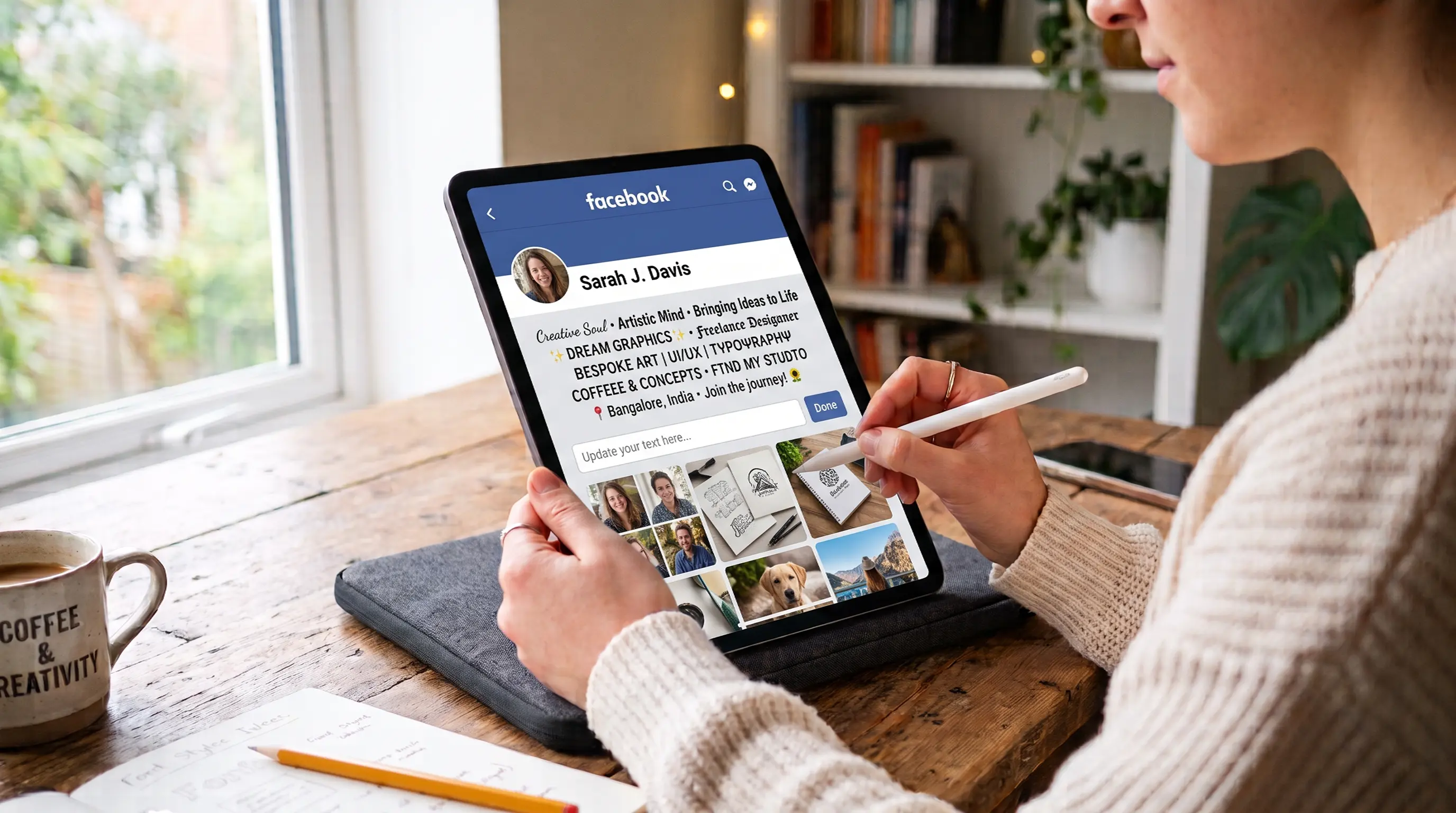
Facebook Font Style Generator
Transform your Facebook posts, comments, bios, and Messenger text with 250+ cool, stylish, and fancy fonts.
What is the Facebook Font Style Generator?
The Facebook Font Style Generator is a free online font changer that turns normal text into stylish fonts with unique symbols. It allows you to customize your posts, updates, comments, and group descriptions to grab the attention of your friends and followers. Choose from various bold, italic, gothic, or boxed character styles with one-click copy and paste.
How to Make Your Facebook Posts Bold or Cursive
By default, standard Facebook updates only support default sans-serif formats. To make select phrases stand out, follow these instructions:
- Input: Type the sentence or post copy in the text box at the top of the generator.
- Select: Scroll and select the bold, italic, gothic, or bubble style you want to apply.
- Copy & Paste: Click on the font card to copy it, then paste it directly into the Facebook post creation field on your profile, page, or group.
The Technical Structure of Unicode Character Mapping
Standard text files only store letters as sequential values. When a browser displays a font, it uses stylesheet instructions to determine its shape. However, in text fields that do not support stylesheets (like Facebook's status publisher), styling cannot be loaded. Our generator overrides this restriction by mapping standard letters to unique Unicode glyphs from the Mathematical Alphanumeric Symbols index block. Because these mathematical characters are hardcoded, they retain their bold, italic, or double-struck shape wherever they are pasted, rendering correctly across all systems.
Guidelines for Better Group & Page Engagement
If you manage a Facebook Group or Business Page, formatting your announcements is critical to keeping members informed. Use bold header fonts for section titles, bullet points for listings, and cursive fonts for quotes. This breaks up blocks of text, making descriptions easier to read on mobile devices.
Using Bold & Italic Formatting in Facebook Ads
Copywriters often use Unicode text styling to optimize Facebook Ad campaigns. Converting primary promotional points, discounts, or call-to-actions into bold text (e.g., 👉 GET 50% OFF TODAY) helps ads stand out visually in active news feeds, boosting read rates and user clicks.
Accessibility & Legibility Guidelines
Screen reader systems read Unicode mathematical characters aloud by their symbol name (such as "Mathematical Bold Capital H, Mathematical Bold Small e" instead of "He"). To keep your brand updates accessible to visually impaired followers, keep the main body of your posts in plain text. Use fancy Unicode fonts exclusively for names, tags, or headers.
How to Revert Styled Characters Back to Plain Text
To change a block of styled text back to plain text, paste the styled copy into the input area of our generator. The tool will parse the Unicode math blocks and output standard Latin text instantly.
Facebook Font Categories and Use Cases
| Font Category | Examples | Recommended Use Cases |
|---|---|---|
| Serif / Sans Bold | 𝐁𝐨𝐥𝐝 𝐓𝐞𝐱𝐭 | Ad headlines, post hooks, prices, and call-to-actions. |
| Italics | 𝘚𝘵𝘺𝘭𝘪𝘴𝘩 𝘛𝘦𝘹𝘵 | Brand slogans, quote citations, and professional titles. |
| Monospace | Monospace |
Dates, coupon codes, and technical announcements. |
| Bubbles / Boxed | 🄱🄾🅇🄴🄳 / ⓑⓤⓑⓑⓛⓔ | Fun statuses, group headers, and callout alerts. |
Optimizing Your Facebook Personal Profile vs. Business Page
How you use custom fonts should change depending on the type of Facebook page you manage:
- Personal Profiles: Have fun with it! Use cursive or aesthetic fonts for your name or bio intro to show off your personality to friends and family.
- Business Pages: Maintain a level of professionalism. Use bold serif or sans-serif fonts to create clear headers in your "About" section (e.g., 𝐎𝐮𝐫 𝐌𝐢𝐬𝐬𝐢𝐨𝐧 or 𝐂𝐨𝐧𝐭𝐚𝐜𝐭 𝐔𝐬) to make information scannable for customers.
Formatting Long-Form Facebook Posts
Facebook posts can often look like massive walls of text. Custom fonts solve this by introducing visual hierarchy. Use bold fonts for your main post title or hook. If you are telling a story or sharing an update, use italic or cursive styles for pull-quotes to break up the reading rhythm and keep your audience engaged until the end.
Standing Out in Facebook Groups
Facebook Groups move incredibly fast, and standard text posts are easily lost in the feed. When asking a question or sharing an announcement in a busy group, style your post's first line with a bold or double-struck font (e.g., 𝕢𝕦𝕖𝕤𝕥𝕚𝕠𝕟 𝕗𝕠𝕣 𝕥𝕙𝕖 𝕘𝕣𝕠𝕦𝕡). This instantly catches the eye of members scrolling quickly past.
Facebook Messenger Hacks
Did you know these fonts work perfectly in Facebook Messenger too? Whether you want to send a heartfelt birthday message in an elegant script font or a funny meme caption using glitch text, copying and pasting from our generator into your chat window is a great way to surprise your friends.
Explore More Typography Tools
Need a wider range of text styles, scripts, or symbols? Explore our other free typography generators:
➤ Specific Style Font Generators: Customize your text into specific style variants using our bold text generator, bubble text generator, cursive text generator, glitch text generator, small text generator, strikethrough text generator, underline text generator, upside down text generator, and zalgo text generator.
➤ Social Fonts Generators: Design custom layouts for bios, captions, and posts on Instagram, Facebook, Twitter (X), YouTube, LinkedIn, WhatsApp, and Discord.
➤ Gaming Name Styles: Create unique, styled nicknames and copy custom symbols for Free Fire and PUBG Mobile.
➤ Main Font Changer: Access over 250+ unique styles (including gothic, bold, glitch, and double-struck) on the FontGenix Homepage.
Frequently Asked Questions
Enter your text above, click on the styled font box to copy the formatted text, and paste it directly when composing your post on Facebook.
Yes! By converting normal letters into corresponding Unicode alphanumeric glyphs, our generator outputs text that displays in bold, italics, and other styling formats on Facebook.
Yes. They use standard Unicode styling which is fully supported by all modern smartphone operating systems and web browsers globally.
Older operating systems lack the modern Unicode mappings that support mathematical symbols. Up-to-date devices and standard browsers will display them correctly.
You can use our generator to style headers in bold or monospace, copy the output, and paste it into group posts to organize rules, schedule updates, or group announcements.